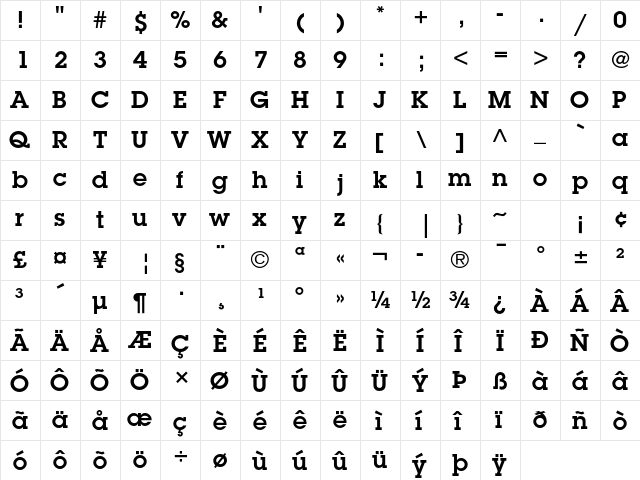
ITC Lubalin Graph Std Demi
| Designer | Herb Lubalin |
Design Context for ITC Lubalin Graph Std Typeface
ITC Lubalin Graph Std is a composed and adaptable typeface that performs quietly and consistently across a wide range of design contexts.